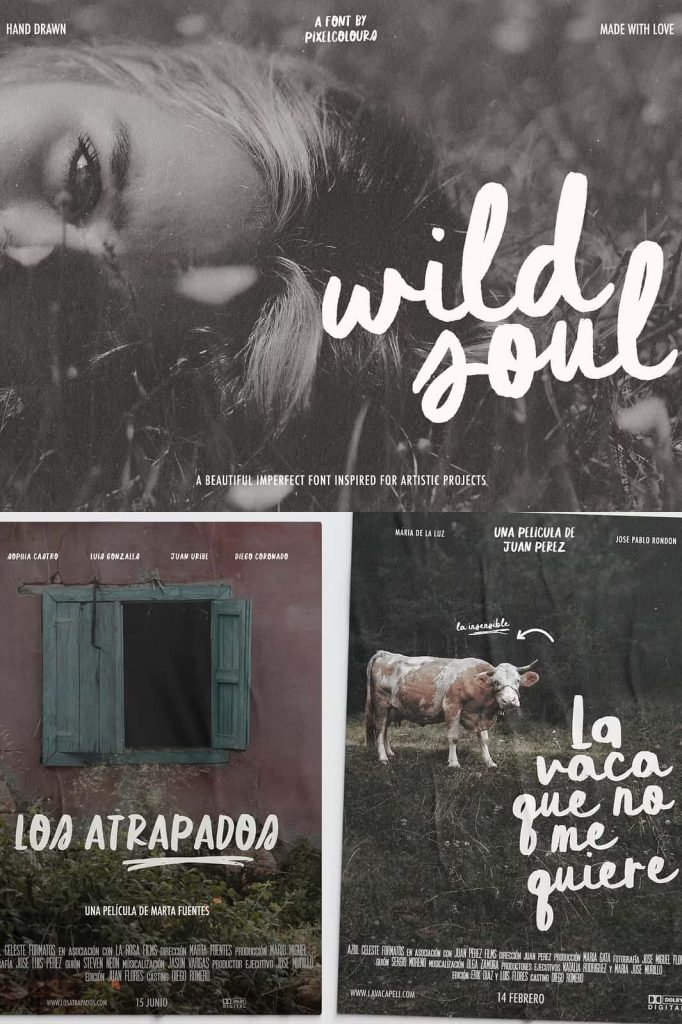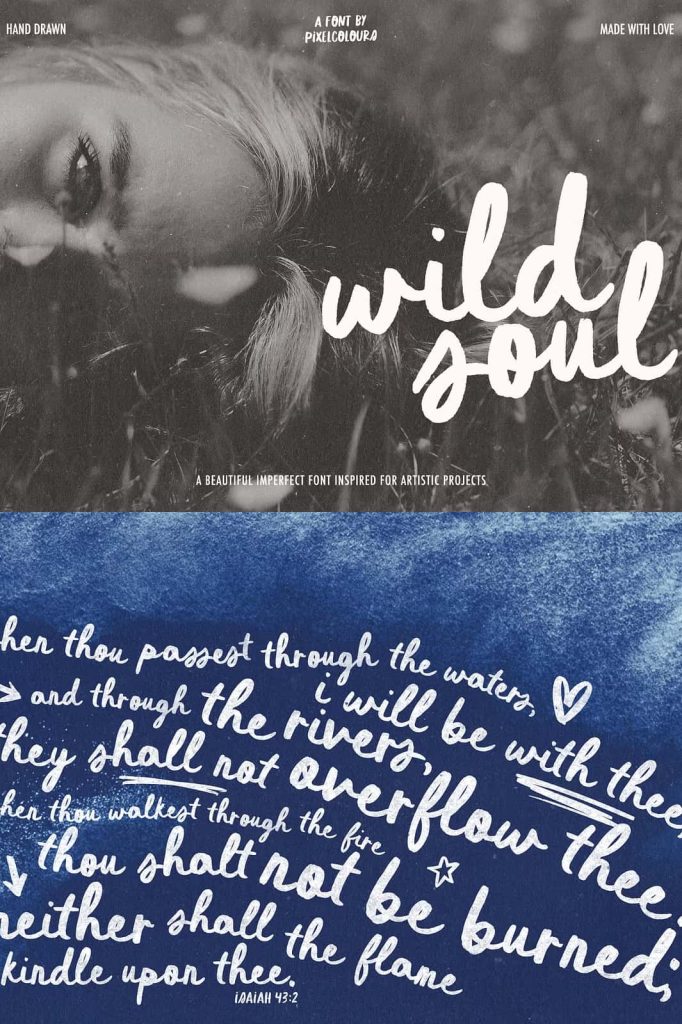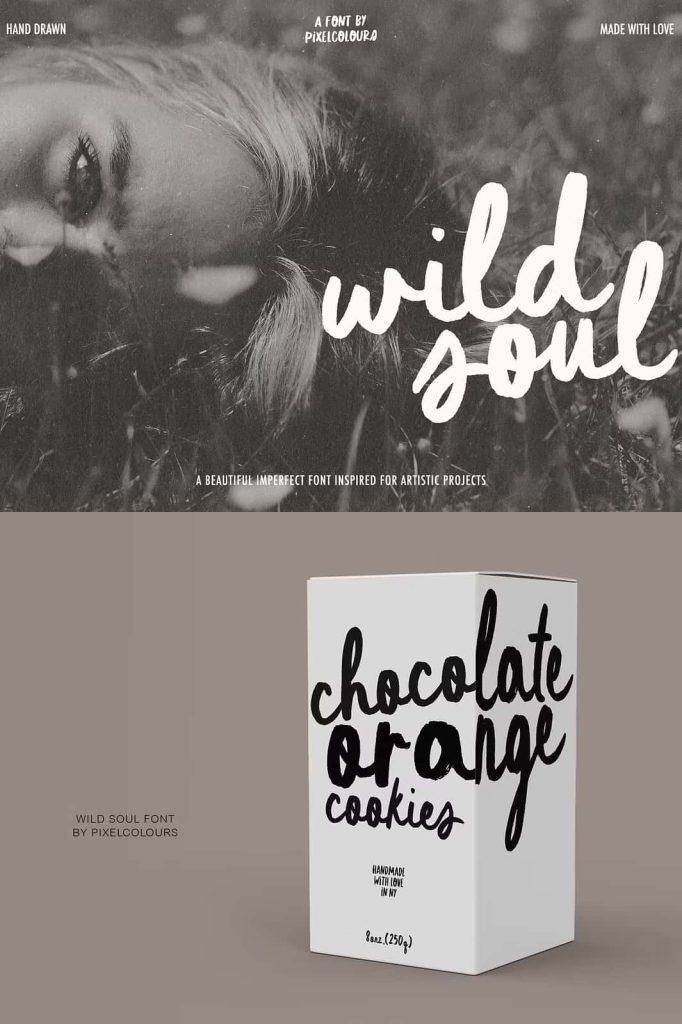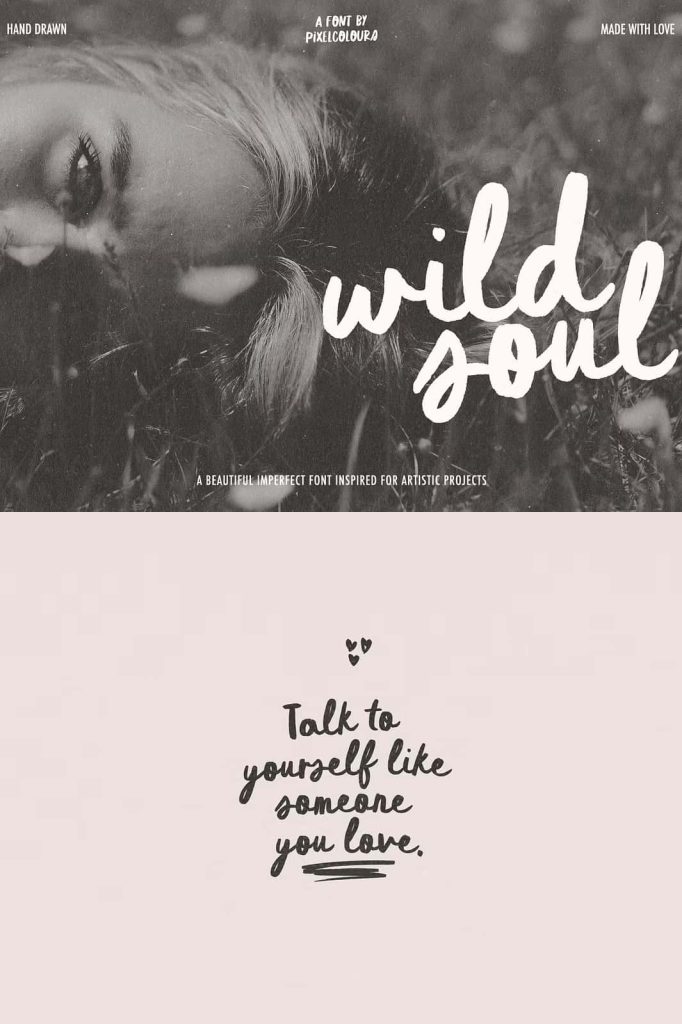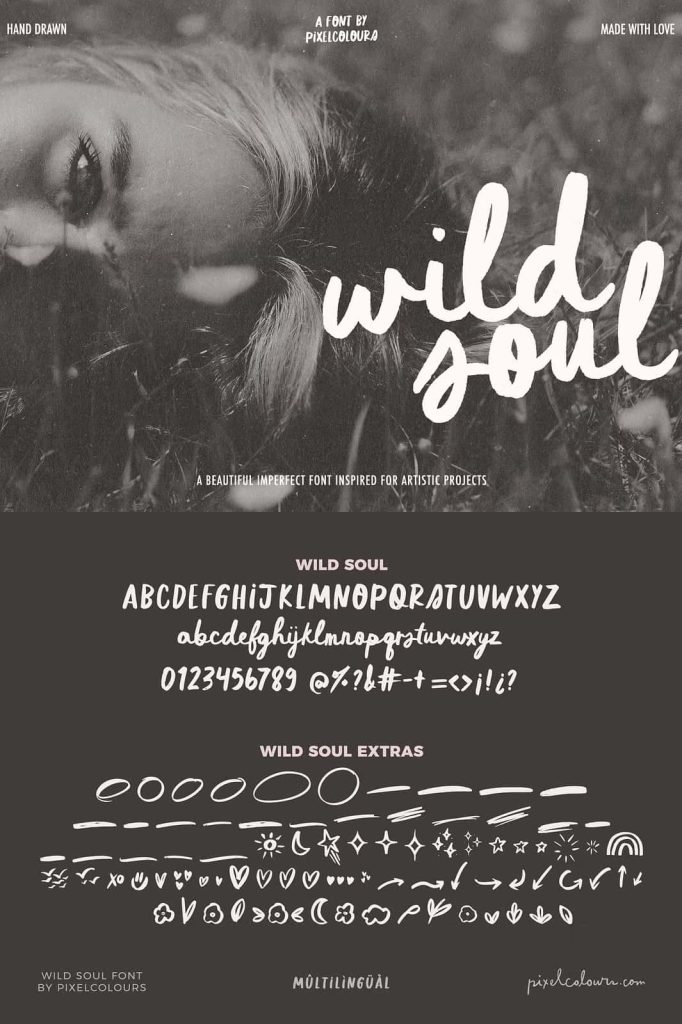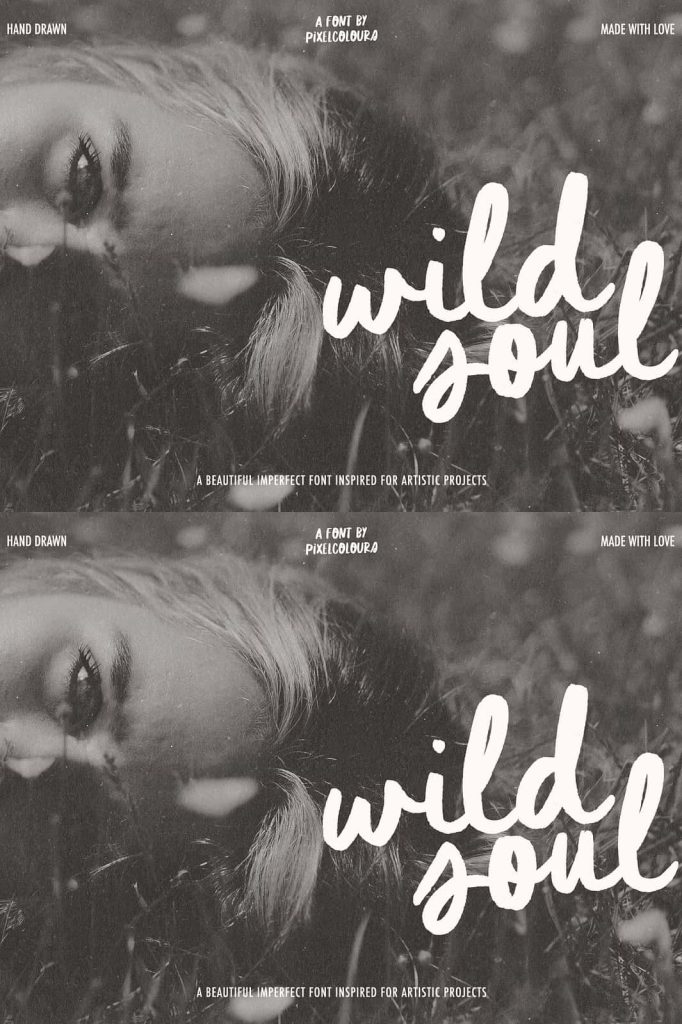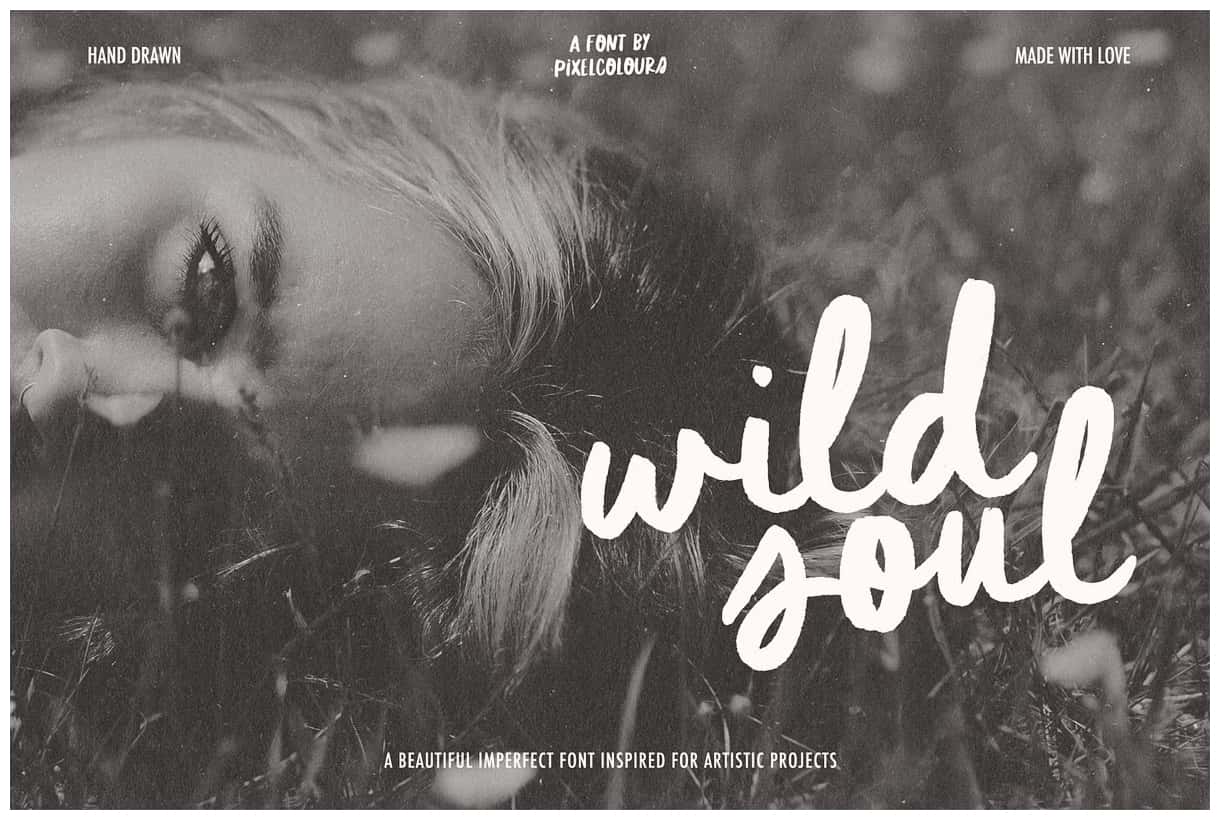
Script Brush Font Duo Wild Soul
Wild Soul Handwriting Font Duo: Organic Expression with Artistic Freedom
Wild Soul is a dynamic handwriting font duo that brings raw creativity and natural expression into your design work. Created for projects that demand a hand-drawn, organic feel, this font pair captures the beauty of imperfection while maintaining strong visual appeal. Its subtle texture and expressive strokes allow designers to create work that feels personal, artistic, and full of character.
Designed for Authentic Hand-Drawn Aesthetics
Wild Soul embraces the imperfections that make handwritten typography so engaging. Instead of aiming for mechanical precision, it highlights irregular lines, natural flow, and textured details. This approach gives your designs a genuine, human touch that stands out in a world dominated by overly polished digital fonts.
Designers can use Wild Soul to create visuals that feel spontaneous and alive. The organic quality of the letterforms makes every composition more relatable and expressive, helping you connect with your audience on a deeper level.
A Powerful Duo for Creative Versatility
Wild Soul includes two complementary handwritten styles that work together seamlessly. This combination allows you to build layered typographic compositions with ease. You can use one style for bold statements and the other for supporting text, creating contrast and visual interest without losing consistency.
The duo format eliminates the need to search for additional fonts, providing everything you need to create cohesive and engaging designs. Whether you aim for a playful look or a more refined artistic tone, Wild Soul adapts to your creative direction.
Includes Dingbats for Extra Creativity
Wild Soul goes beyond standard typography by including a dedicated dingbats font filled with decorative doodles. These elements allow you to enhance your designs with unique accents and visual details. You can easily incorporate these graphics to create more dynamic and engaging compositions.
• Add decorative elements to quotes and social media graphics
• Enhance product packaging with hand-drawn accents
• Create custom compositions with artistic embellishments
• Build unique visual identities with minimal effort
These additional features give designers more creative freedom, making Wild Soul a complete solution for expressive design work.
Perfect for Artistic and Commercial Projects
Wild Soul performs exceptionally well across a wide range of creative applications. Its organic style makes it ideal for projects that require personality, warmth, and artistic flair. Designers can use it to bring a handcrafted feel into both personal and commercial work.
This font duo works beautifully in:
• Product packaging that needs a handmade and authentic look
• Movie posters and art posters that demand visual impact
• Quote designs that feel personal and expressive
• Logo design with a creative and informal tone
• Social media graphics that stand out with originality
Its versatility ensures that it remains effective across different industries and creative styles.
Subtle Texture for Added Depth
Wild Soul features a gentle texture that enhances its hand-drawn appearance without compromising readability. This detail adds depth and dimension to your typography, making it more visually engaging. The texture also helps your designs feel more tactile, as if they were created with real tools on physical surfaces.
This balance between texture and clarity ensures that your designs remain professional while still embracing an artistic edge.
Bring Personality into Every Design
Wild Soul empowers designers to break away from rigid typographic conventions and explore more expressive forms of communication. Its handwritten style encourages creativity and experimentation, allowing you to develop designs that feel unique and authentic.
Each letter carries a sense of individuality, helping your work stand out and leave a lasting impression. This makes Wild Soul especially valuable for projects that aim to capture attention and convey emotion.
Elevate Your Creative Projects with Wild Soul
Wild Soul transforms simple text into a powerful visual element filled with character and charm. Its combination of handwritten styles, subtle texture, and decorative dingbats provides a complete toolkit for artistic design. By incorporating this font duo into your projects, you can create work that feels vibrant, personal, and engaging.
Choose Wild Soul handwriting font duo to bring organic energy and creative freedom into your typography. It allows you to craft designs that reflect true artistic expression while maintaining versatility and impact.